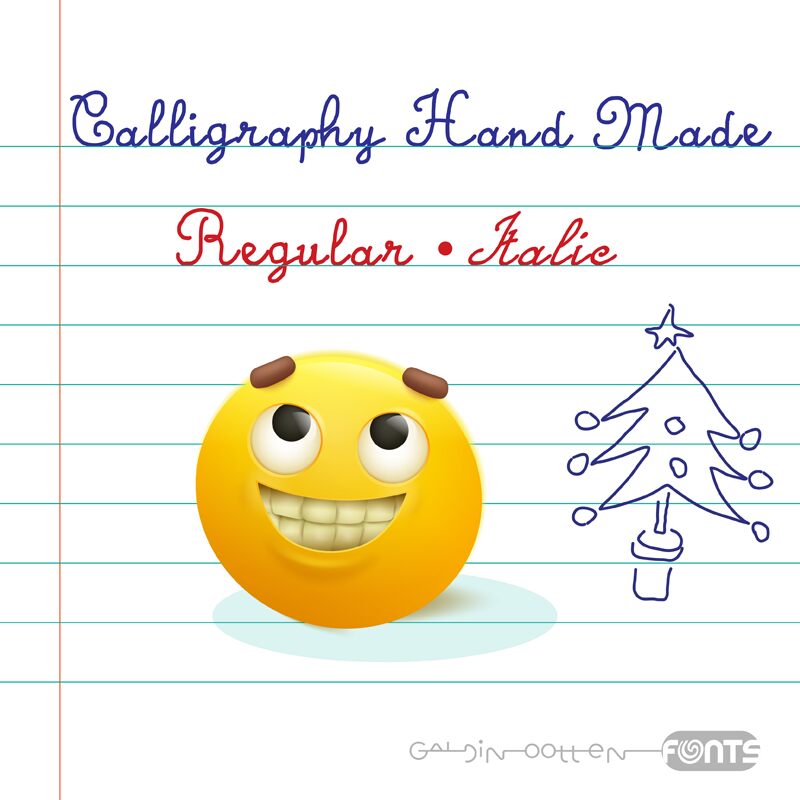
Calligraphy Hand Made Italic
Calligraphy Hand Made Italic font designed and shared for free by Galdino Otten Fonts is a modern handwriting typeface with natural, youthful characters. Its characters include Uppercase, Lowercase, Numbers and Symbols.
This calligraphic script font can be used for designs that carry a joyful, playful message that include cards, greeting notes, menus etc. It can also be used for children’s books, illustrations, and titles for posters and web banners.